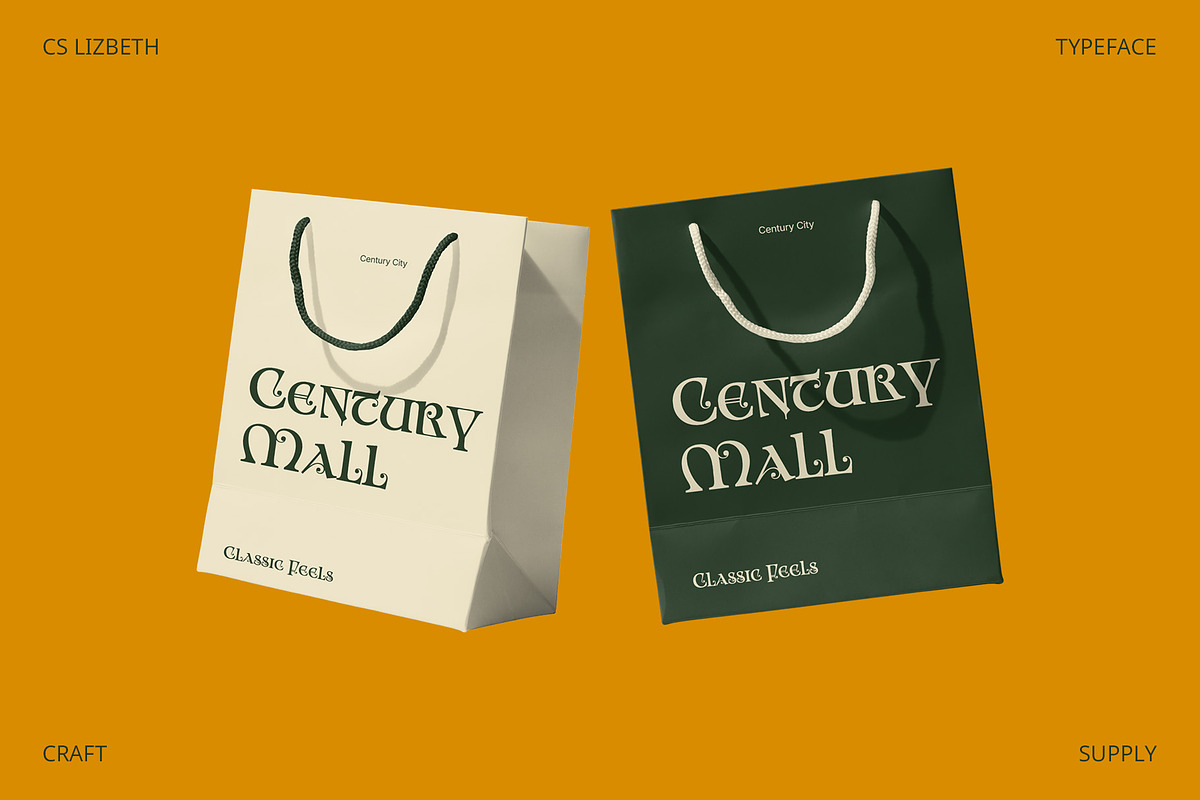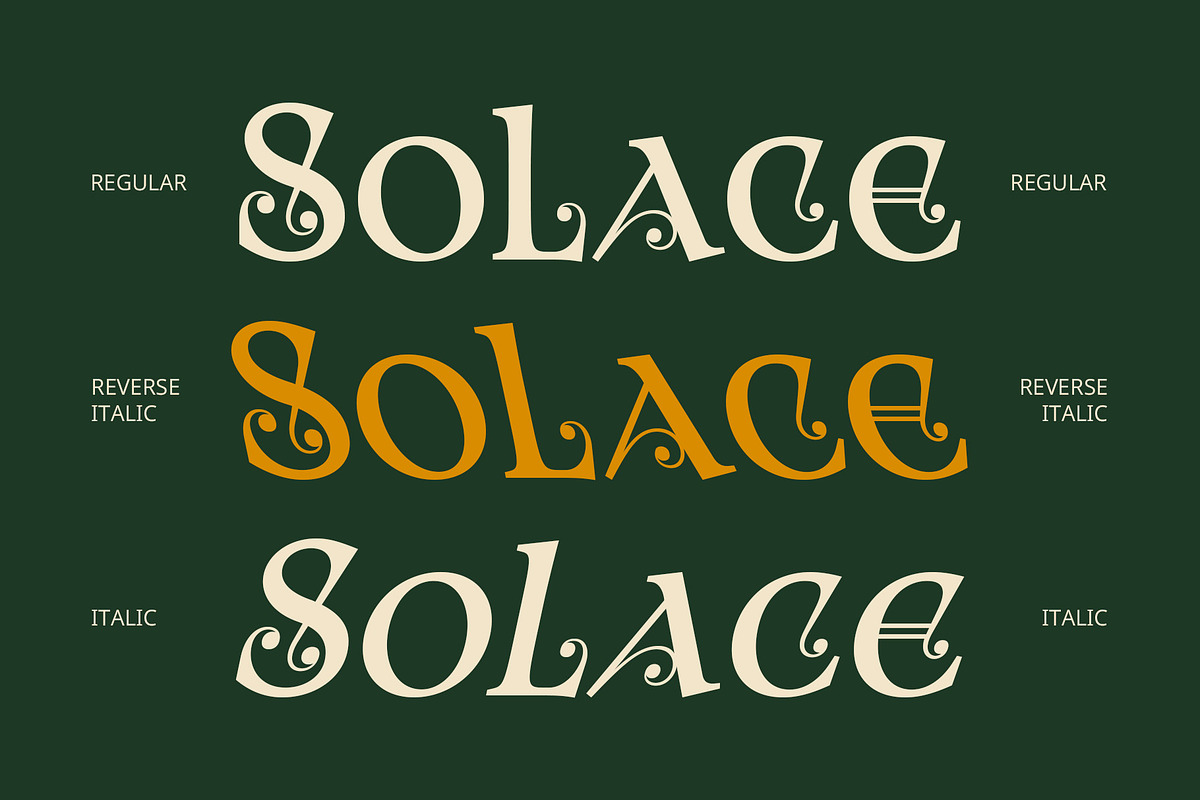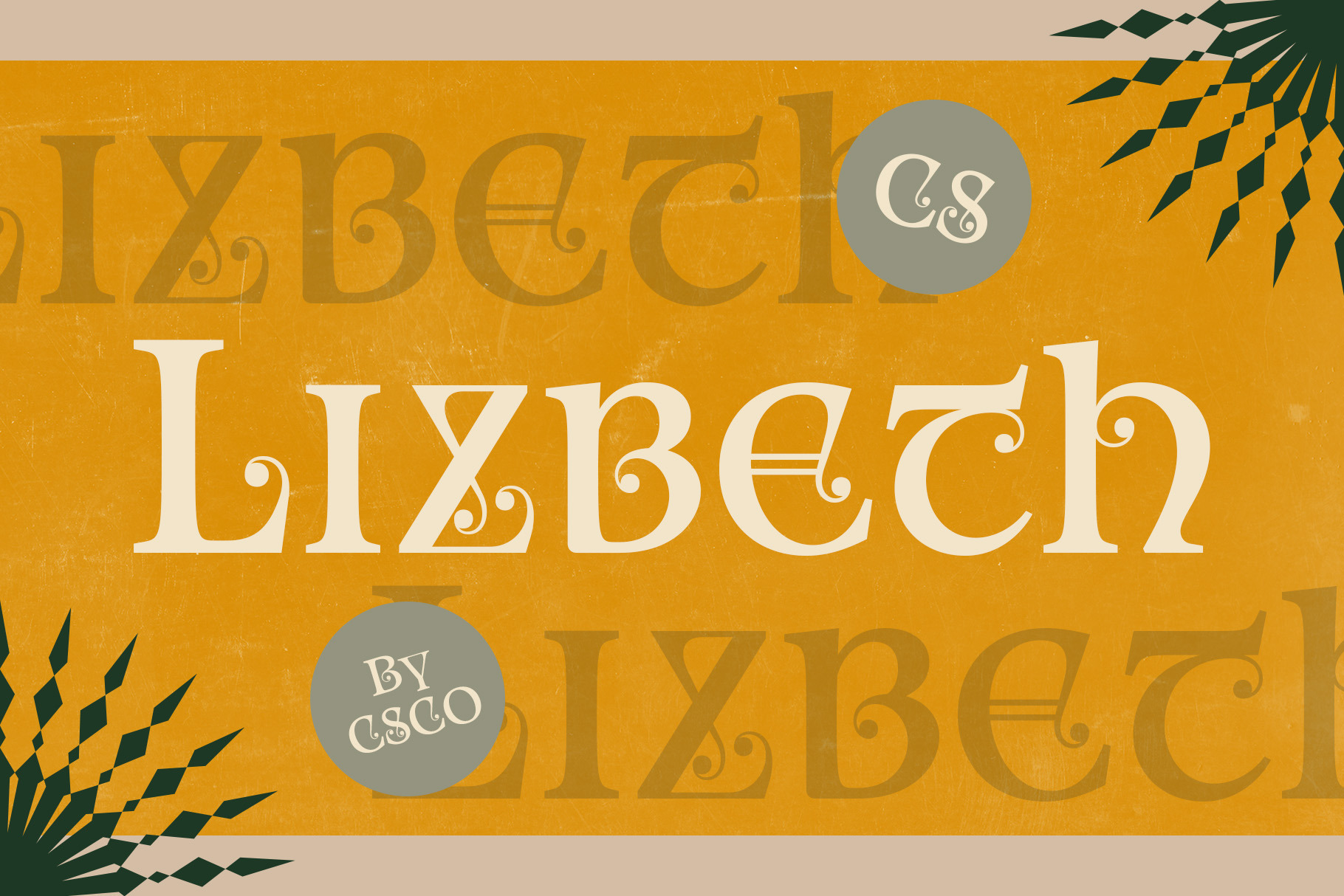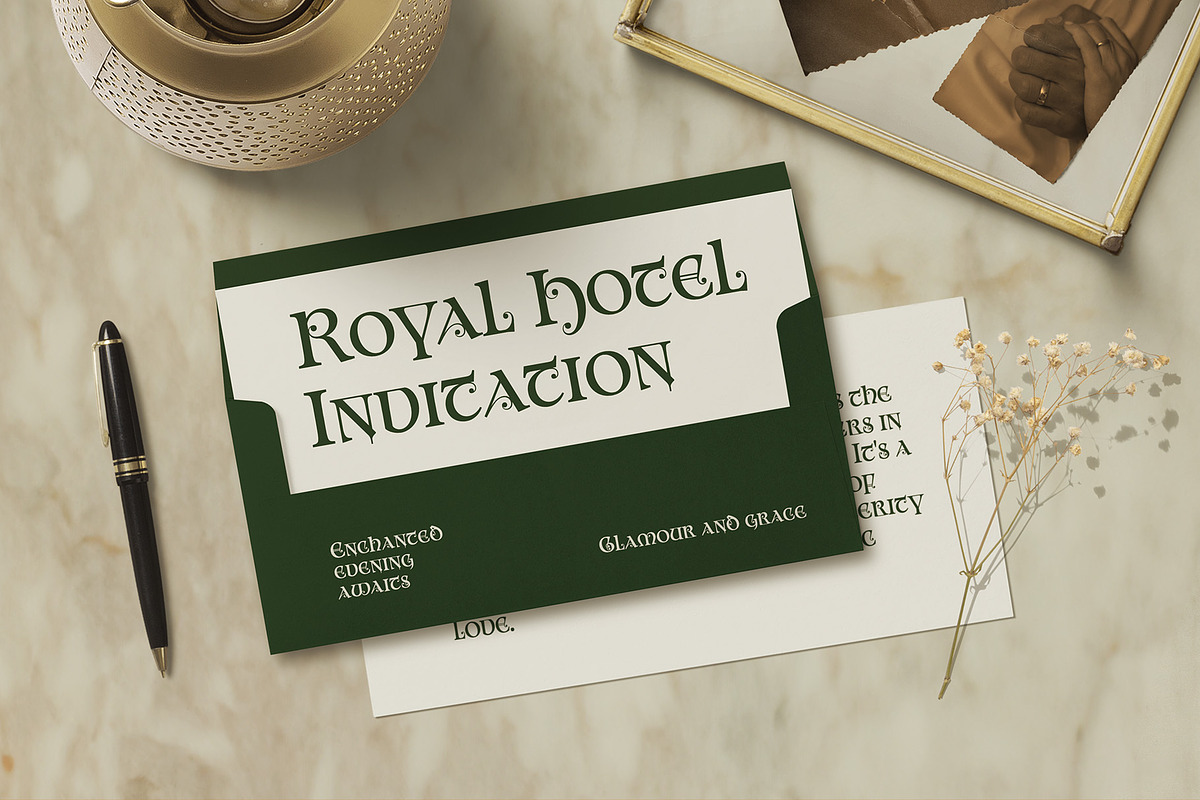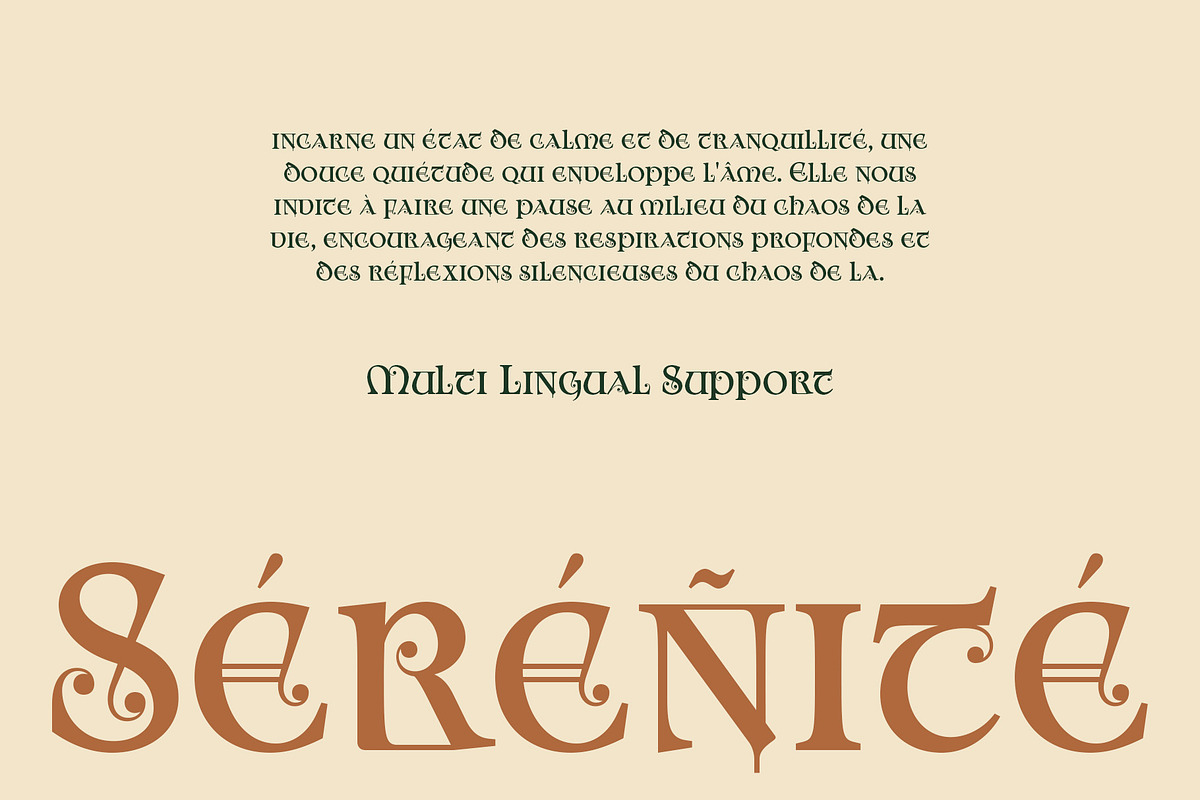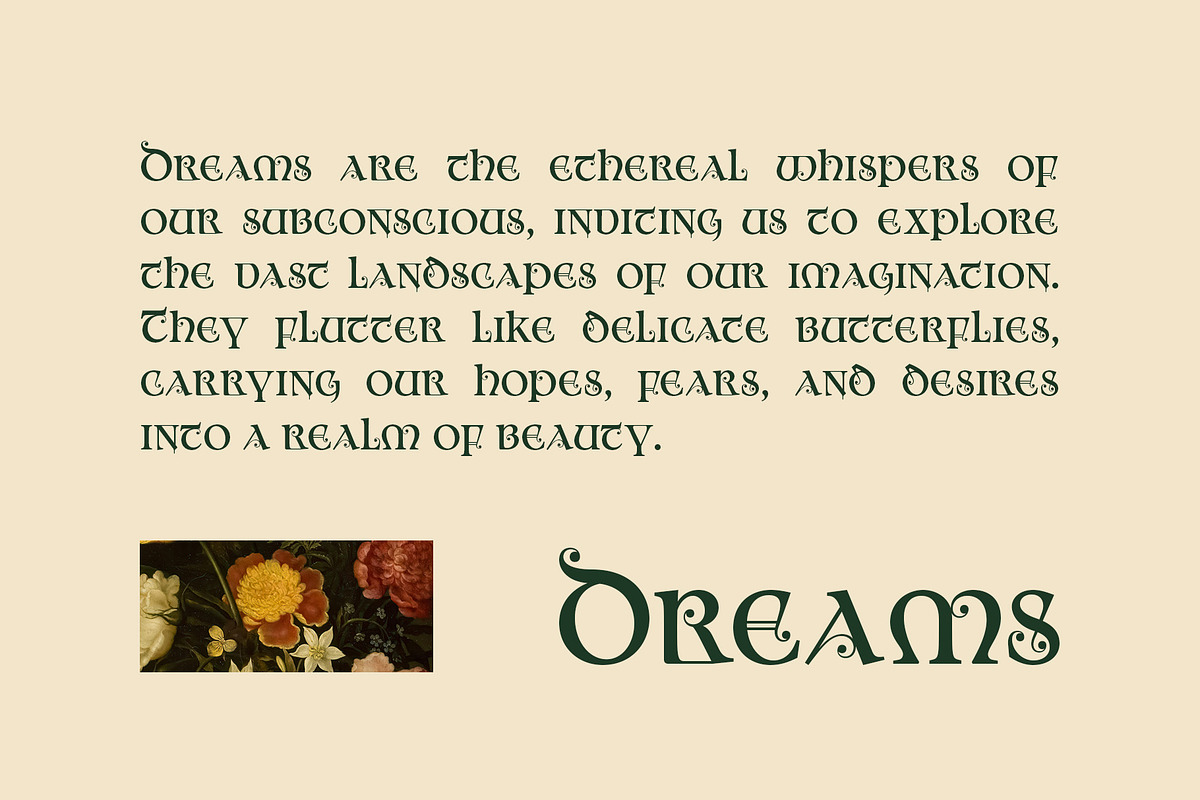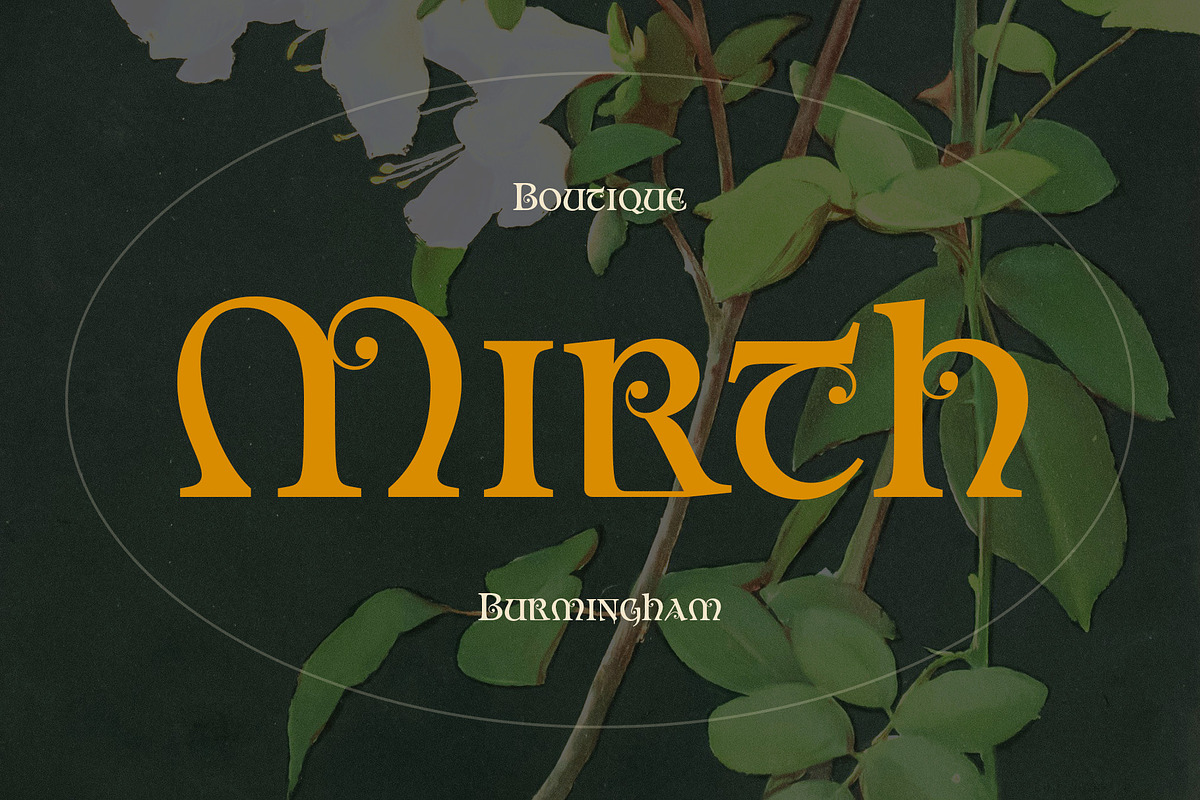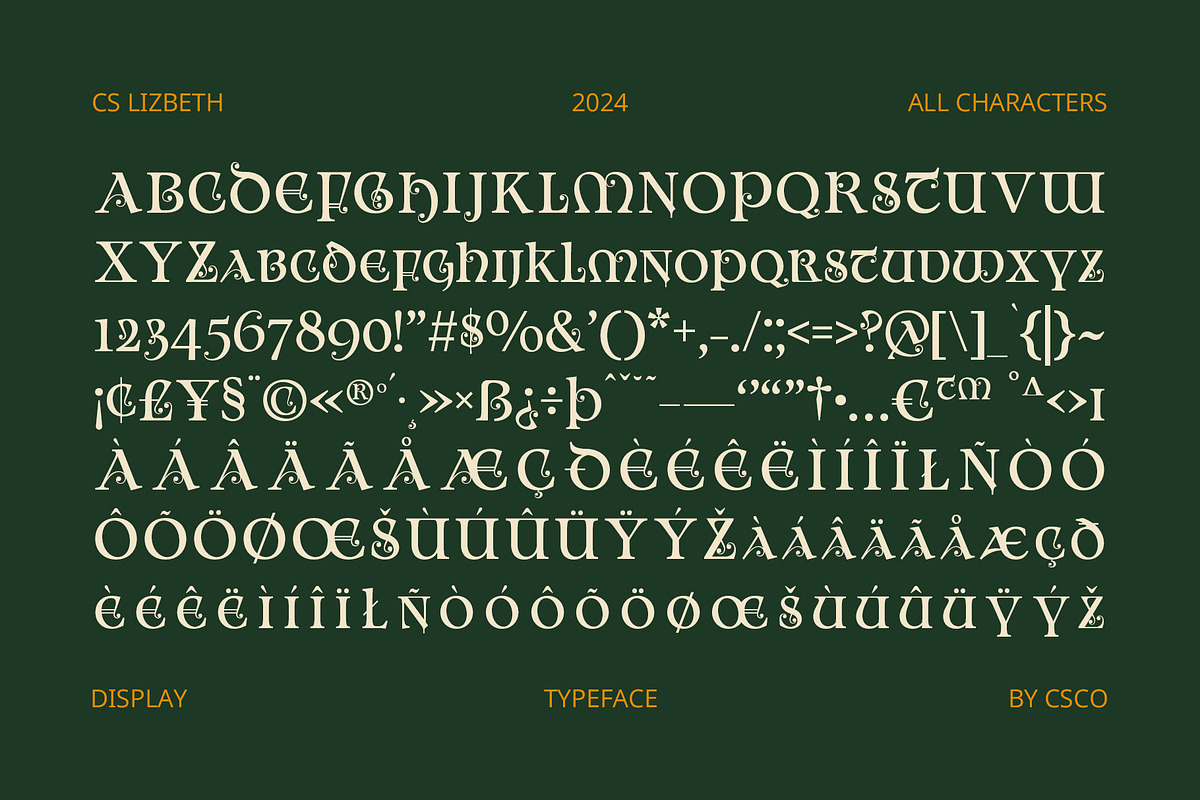
CS Lizbeth – Uncial Font
Timeless Elegance CS Lizbeth is a captivating uncial display font that draws inspiration from medieval handwriting, showcasing letters adorned with smooth curves and distinctive rounded shapes. This elegant and artistic typeface encapsulates the charm of historical script, creating a strong classic impression that evokes a sense of tradition and sophistication.
Classic Aesthetics With its rich, flowing forms, CS Lizbeth is perfectly suited for designs that require a traditional ambiance. Whether used in formal invitations, historical documents, or art projects, this font adds a touch of timeless beauty and grace. Its refined character enhances the visual appeal of any design, making it an excellent choice for projects that aim to evoke nostalgia and elegance.
Versatile Applications The versatility of CS Lizbeth allows it to shine in a variety of creative contexts. It is ideal for wedding invitations, where its elegant style can elevate the overall aesthetic, or for book covers and editorial layouts that seek to convey a sense of history and depth. Additionally, this font is perfect for branding projects that want to communicate a heritage feel while remaining visually captivating.
Charming Aesthetic Touch Incorporating CS Lizbeth into your designs provides a charming aesthetic touch that captures attention and invites admiration. Its unique letterforms not only enhance readability but also create a memorable visual experience, making every project feel special and thoughtfully crafted.